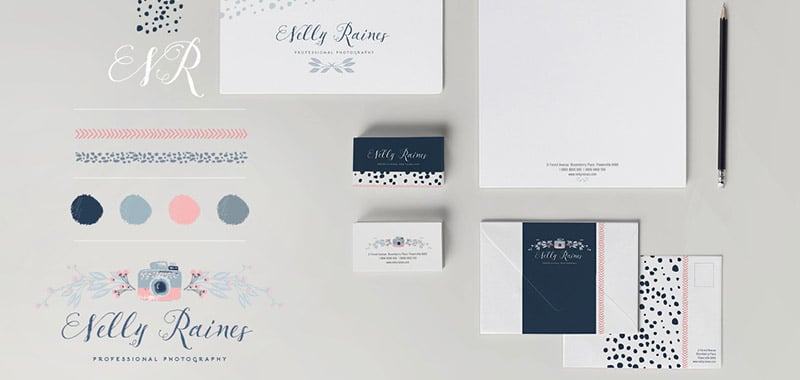
TUESDAY FONTS: New shine, Pillowbook and Moku26
Tuesday is here and so is our category: Tuesday Fonts. This time we would like to present to you New shine, Pillowbook and Moku26.
New shine script
New shine script is new font from Rvq Typefoundry, elegant feel character set. To create the beautiful combination, just mix the uppercase and lowercase then mix with the alternative glyphs and playing with swash. The New shine script includes a full set of capital and lowercase letters, as well as multi-lingual support, currency figures, numerals, punctuation & some extra glyphs.
Pillowbook
A delicate font with a lovely rustic feel, made with care in the ever-popular style of modern calligraphy. The subtle irregular baseline and hand drawn quality to each character will give your work an authentic imperfect hand-lettered look. The ornaments have a range of items to enhance your work, and even come with some versatile patterns and text dividers! A handy reference sheet is provided plus tips on how to get the most out of your ornaments. All made to save time and make branding and designing super-easy.
Moku26
Stylish geometric typeface for the digital woodworker. Inspired by old fashion woodworkers, MOKU26 brings a great experimental look and sophisticated style to branding. Available in 3 styles; Birch, Oak, Pine. Ideal for titles, logo, branding, digital and apps.